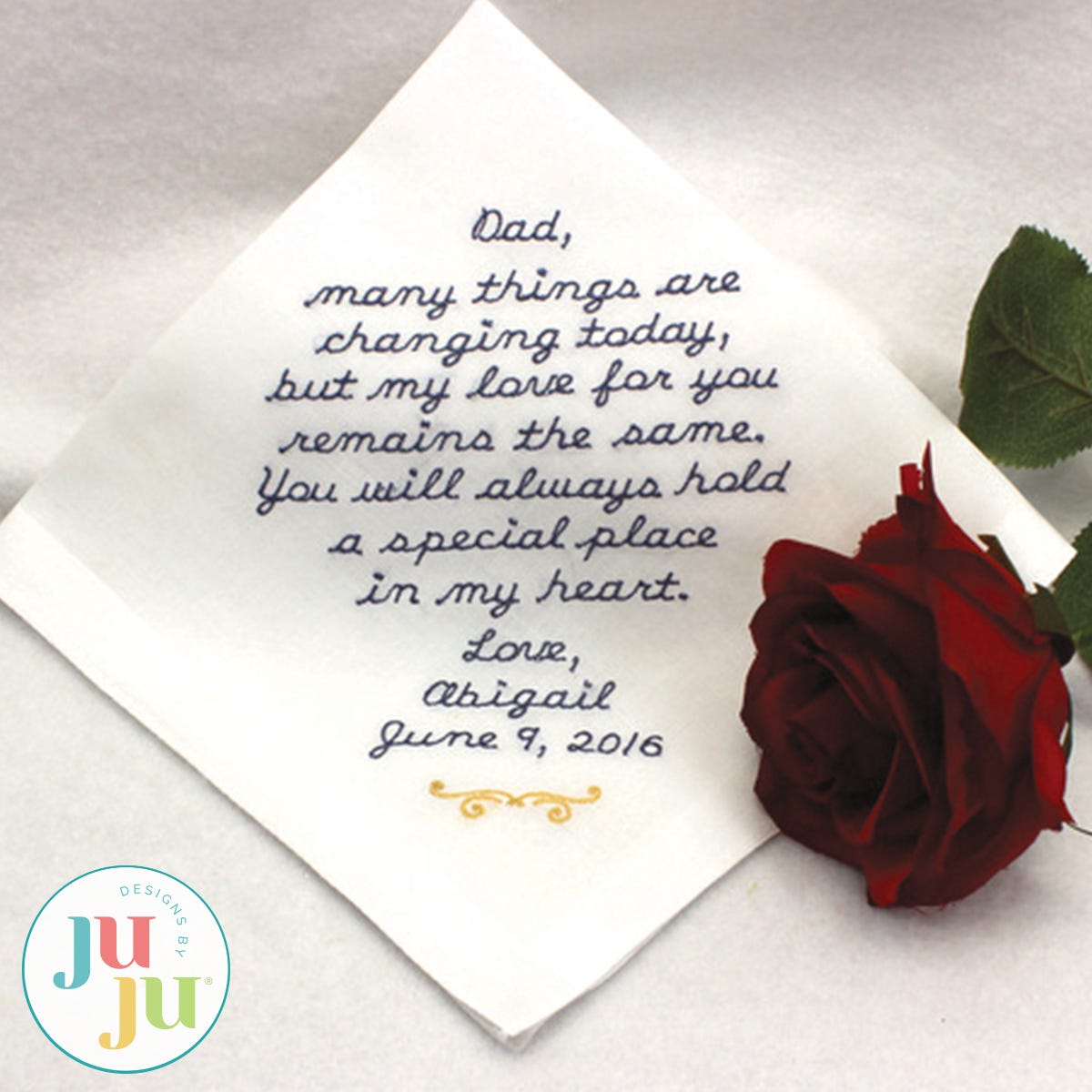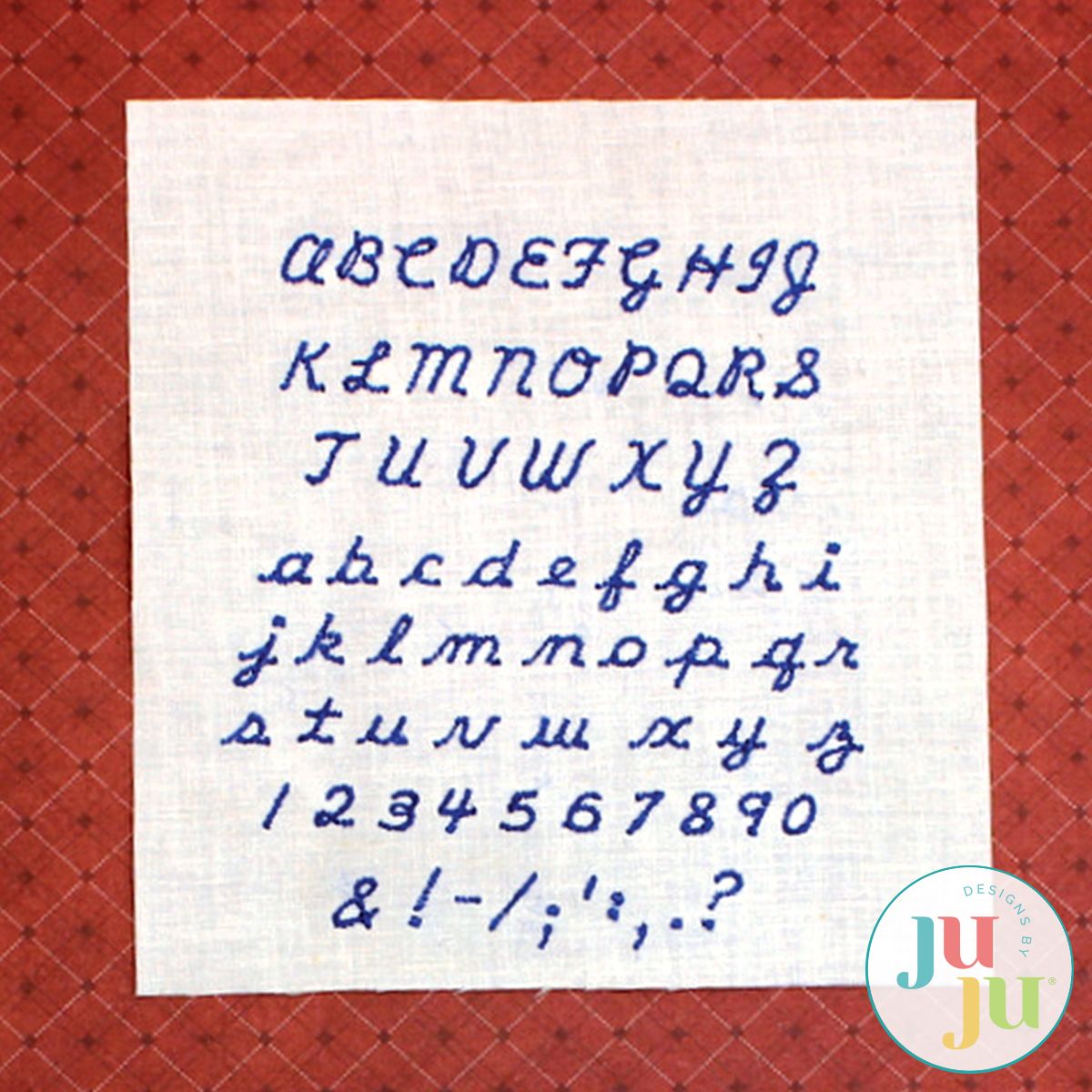
Tiny Alright Embroidery Font by Oma's Place
This small font was entirely digitized manually to ensure perfect start and ending of each letter. Each letter starts on the left and ends on the right resulting in a minimum of jump stitches. The font should be stitched with a 65/9 or 60/8 needle and with 60 wt thread only. Despite the small size of this font, it is very legible and fluid. Tips on how to stitch perfect small lettering are part of your download. Great for quilt labels, weddings and heirloom stitching. Bx format included (for use with the Embrilliance program). Please note that the font's density is light to ensure that heirloom fabrics do not get damaged by the lettering.
Capital letter A 0.28x0.29 (7.27x7.40 mm) 141 stitches
Lower case a 0.28x0.19 (7.00x4.70 mm) 97 stitches